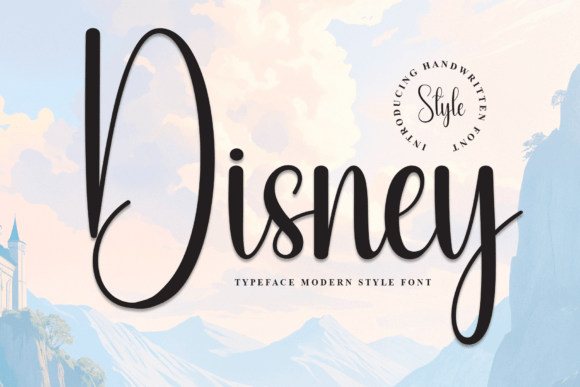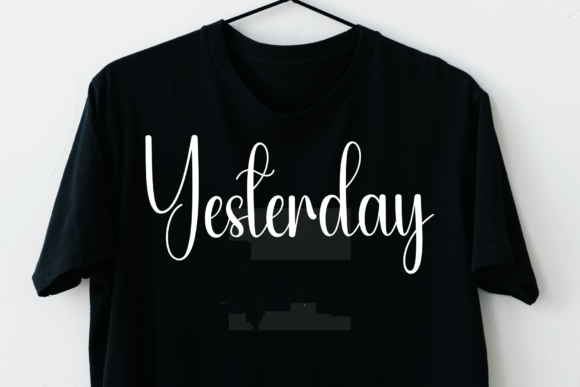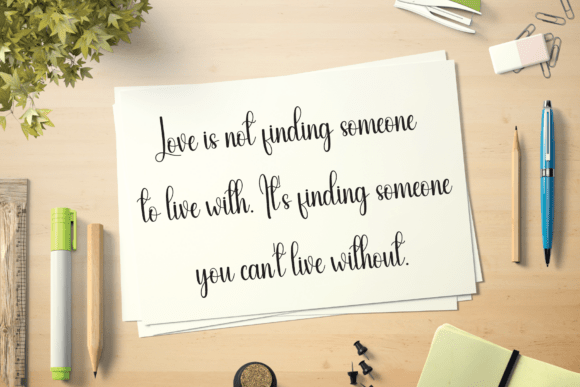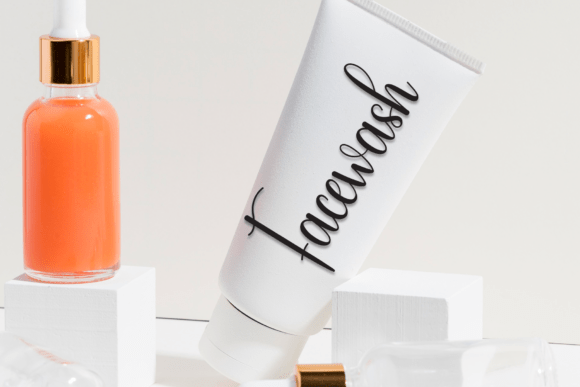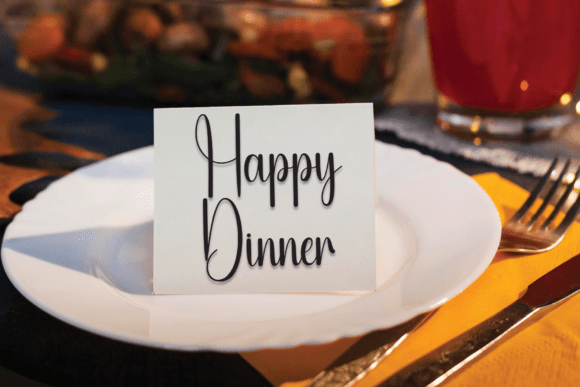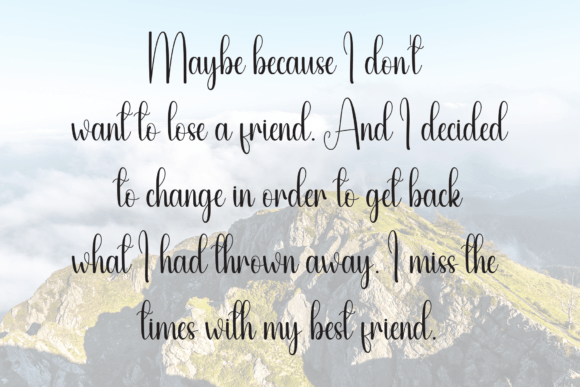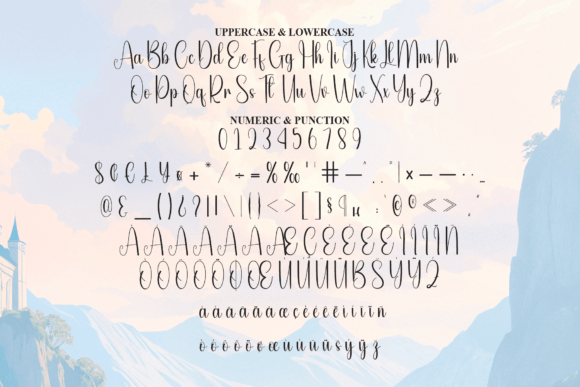
The Magic of Disney Font: Elevating Your Designs
Have you ever stumbled upon a font that transports you to a world of wonder and creativity? For many designers, the moment they discover a font that speaks to their aesthetic is pure magic. It’s the spark that ignites a new project, a fresh idea, or a renewed passion for their craft. For me, that font is the Disney Font – a stylish handwritten script that exudes elegance and modern flair.
This enchanting typeface is more than just a pretty face; it’s a powerful tool for designers looking to add a touch of sophistication and warmth to their projects. Whether you’re crafting a brand identity, designing invitations, or creating social media content, the Disney Font is the perfect companion to help you achieve your vision. Its flowing strokes and organic curves bring a level of refinement and charm that’s hard to resist.
As a designer, you know the value of having the right font at your fingertips. The Disney Font is a valuable addition to any toolkit, offering a level of versatility and style that’s sure to elevate your designs and leave a lasting impression.
Disney Font Key Features
- Font Family: The Disney Font is a custom-designed font family created by Disney, with multiple styles and weights available.
- Unique Characteristics: The Disney Font is known for its playful, cursive style, with a distinctive flair and swashes that evoke a sense of nostalgia and whimsy.
Disney Font Review
✨ The Disney Font is an interesting choice for designers, especially those who want to add a touch of whimsy and nostalgia to their projects. It’s a highly stylized font that’s reminiscent of classic Disney animation, and it works well for titles, headings, and other display text. The font is highly legible, even at small sizes, and it has a unique charm that’s hard to resist.
✨ One of the standout features of the Disney Font is its versatility. It works well for a wide range of projects, from children’s books to advertising campaigns. The font is also highly customizable, allowing designers to adjust the spacing, alignment, and color to suit their needs.
- ⚠️ The Disney Font is not suitable for body text. It’s too stylized and may be difficult to read at larger block sizes.
Overall, the Disney Font is a unique and charming choice for designers who want to add a touch of magic to their projects. While it has some limitations, it’s a great option for titles, headings, and other display text. Just be sure to use it judiciously and consider the needs of your project before making a decision.
The Disney Font is commonly used for:
- Creating magical and whimsical designs for children’s parties and events.
- Designing merchandise and branding for Disney-themed products.
- Adding a touch of nostalgia and retro charm to modern designs.
To get the most out of the Disney Font, try:
- Combining it with other whimsical and playful fonts for a unique look.
- Using it in bold and